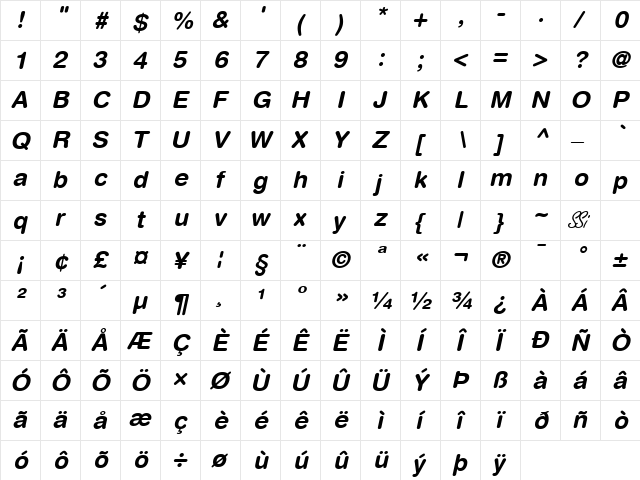
Context Rounded SSi Bold Italic Font Preview
Design Context for Context Rounded SSi Typeface
Context Rounded SSi softens its letterforms with rounded terminals, giving it an approachable, friendly quality that works well in consumer-facing and digital contexts. Its italic angle brings a sense of urgency and motion to the letterforms. Its bold stroke weight gives it real presence on the page.
Well-suited to UI design, mobile interfaces, and any brand that wants approachability without sacrificing clarity.
Font Pairing: Pairs well with a rounded or humanist sans for body copy, maintaining the friendly tone without relying on Context Rounded SSi to carry extended reading.
Pro Tip: Use Context Rounded SSi for UI elements, app interfaces, and anywhere a friendly, approachable tone needs to be maintained without sacrificing clarity.